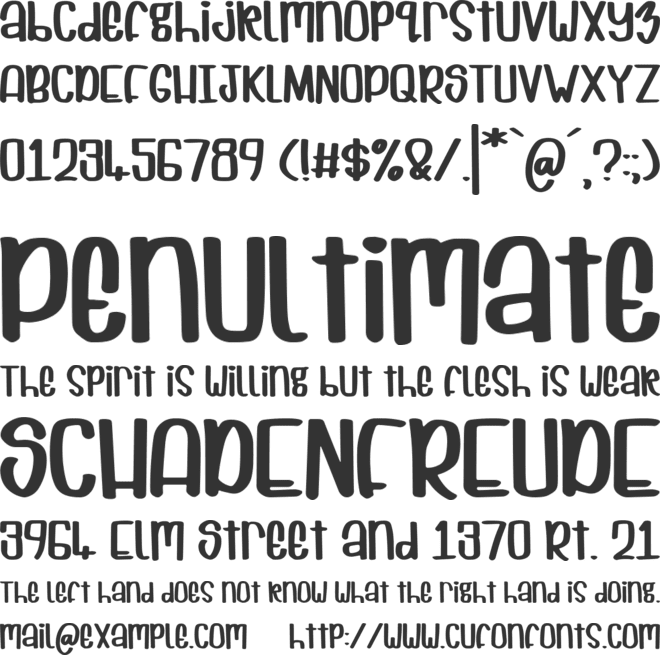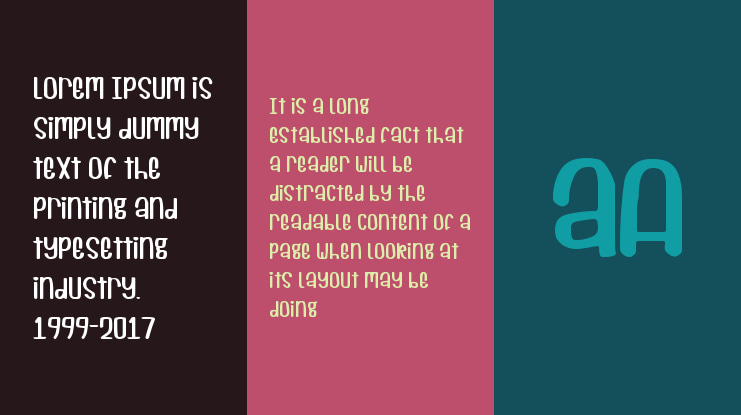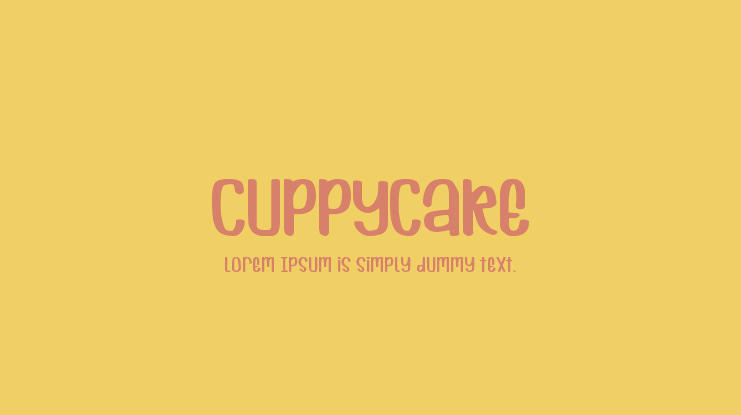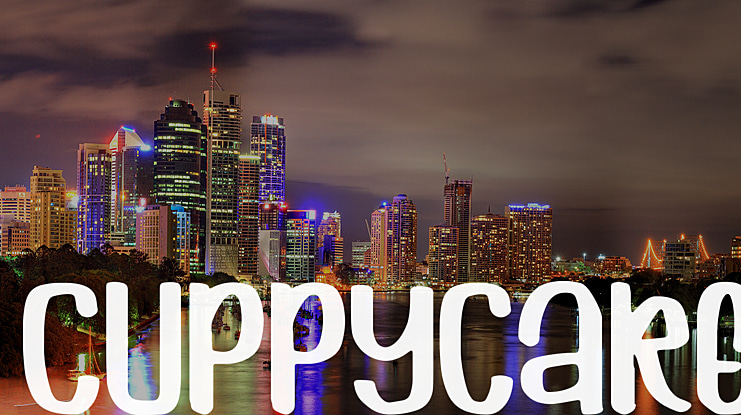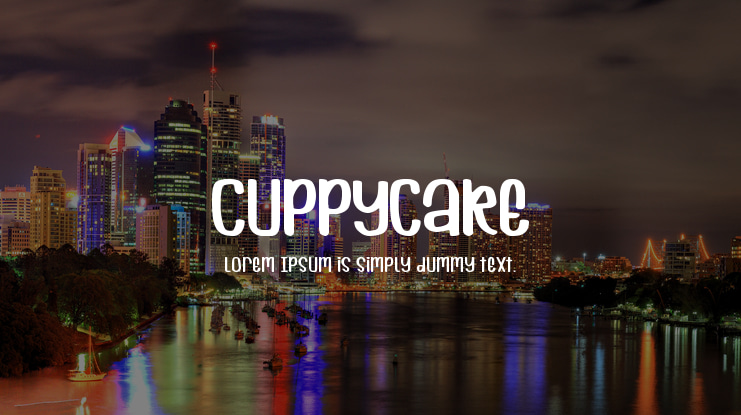
Cuppycake Font
Amber Nest
Meet Cuppycake, an impossibly cute font! This adorable font is ideal as a display font as both upper and lower case letters have the same height.
In total this free version of Cuppycake has 349 glyphs for you to play with and enjoy, including multilingual support.